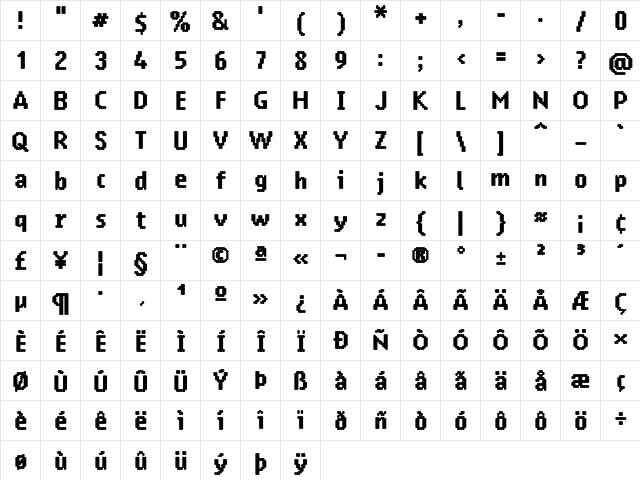
14 LED Black Black Font Preview
14 LED Black Black
14 LED Black Black Font Details
| Foundry | Peter Wiegel |
| Designer | Peter Wiegel |
Design Context for 14 LED Black Typeface
14 LED Black takes a measured approach to typography — its balanced proportions and neutral character make it a reliable workhorse for both digital and print work.